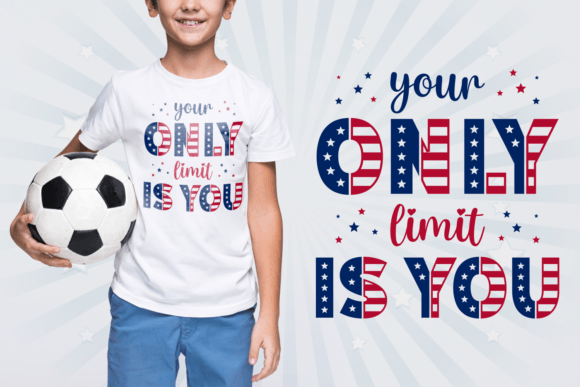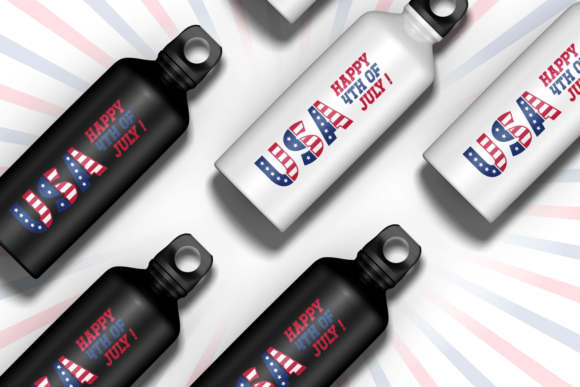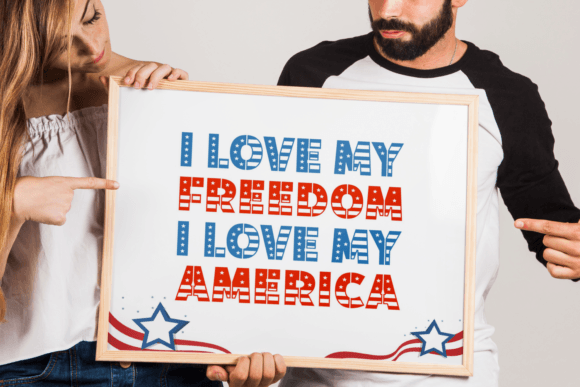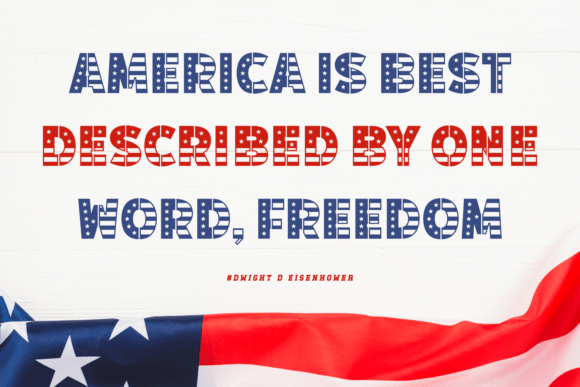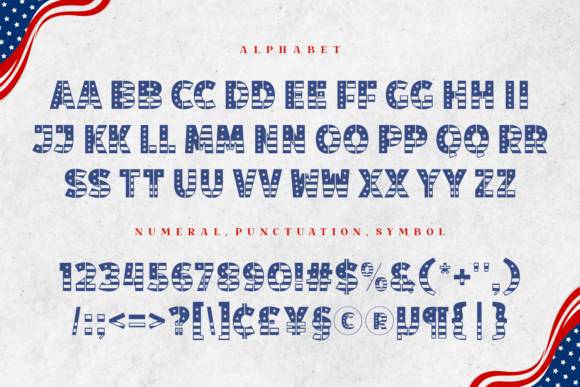
Introducing America’s Best Hero Font: A Patriotic Design Essential
I’ll never forget the summer I was tasked with creating a patriotic banner for a client’s Independence Day celebration. As I scrolled through font after font, I just couldn’t find the right fit. That was until I stumbled upon America’s Best Hero Font. It was love at first sight! ✨ The perfect blend of patriotism, elegance, and whimsy, this decorative font has since become a staple in my design toolkit.
• ✨ Instant Patriotic Vibe: America’s Best Hero Font instantly evokes a sense of national pride and identity, making it perfect for projects celebrating American culture and history.
• ✅ Highly Versatile: From impactful headlines to festive banners and signage, this font can be used in a variety of design projects.
• 💫 Unique Design Elements: The font’s distinctive design, inspired by the American flag, adds a touch of personality to any design.
While America’s Best Hero Font is an excellent choice for many design projects, there are a few things to keep in mind: ⚠️
• 🤔 Legibility at Small Sizes: As with many decorative fonts, legibility may be an issue at very small sizes. It’s best to use this font at larger sizes to ensure maximum impact.
• ⚠️ Limited Multilingual Support: This font may not support a wide range of languages, so be sure to check the character set before using it for multilingual projects.
A Practical Guide to Using America’s Best Hero Font
The Designer Inspiration Behind America’s Best Hero Font
America’s Best Hero Font was inspired by the American flag and the values it represents: freedom, unity, and patriotism. The designer aimed to create a font that would evoke a sense of national pride and identity, while also being versatile and easy to use.
What makes America’s Best Hero Font unique? Its distinctive design, inspired by the American flag, sets it apart from other fonts.
Is America’s Best Hero Font suitable for body text? While it’s possible to use it for body text, this font is best suited for headlines, titles, and short paragraphs.